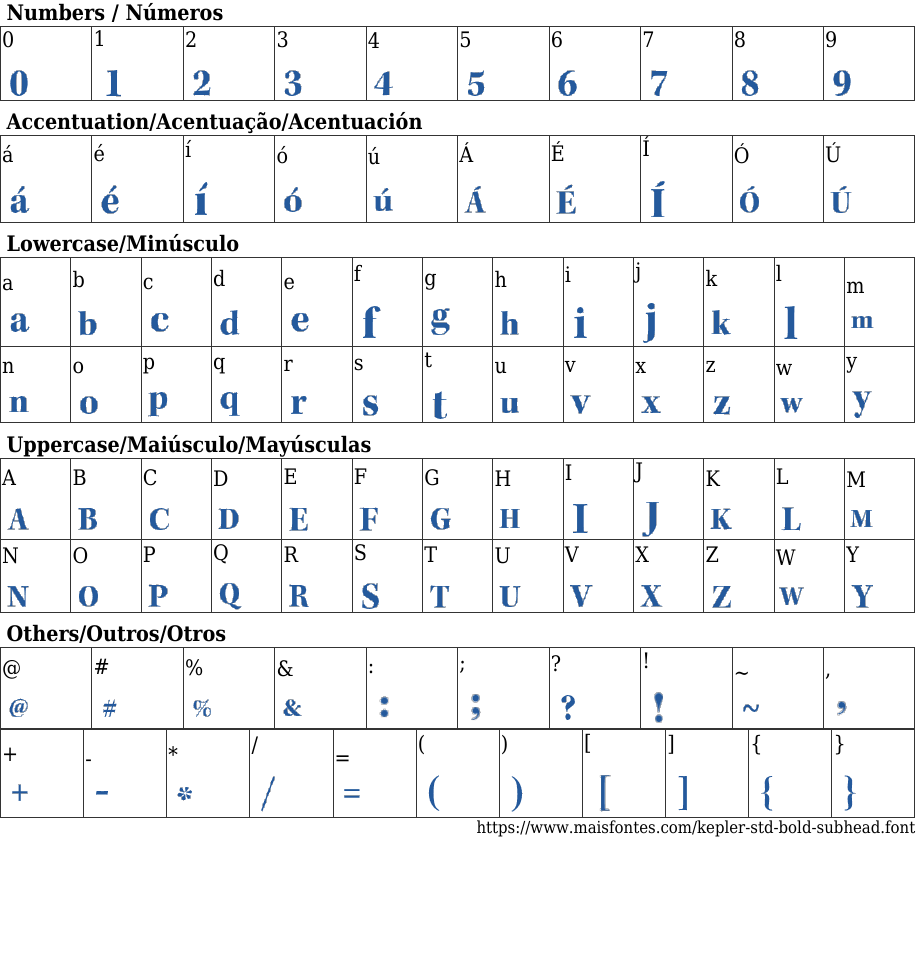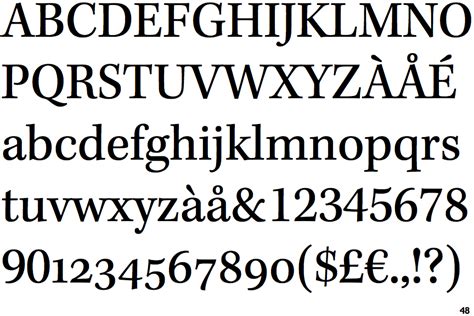
Kepler Standard Bold Font . Web named after the german renaissance astronomer, kepler is a contemporary type family designed by robert slimbach in the. Web download kepler std bold for free.
Named after the german renaissance astronomer, kepler is a contemporary type family designed by. The kepler std bold font was designed by robert. View sample text, character map, user rating.
Named after the german renaissance astronomer,. Web download kepler std bold for free. Web kepler® std is a serif font family. A serif typeface with 168 styles, available from adobe fonts for.
Kepler Standard Bold Font - The kepler std bold font was designed by robert. Named after the german renaissance astronomer, kepler is a contemporary type family designed by. Web download kepler std bold font. Web download kepler std bold for free. Web kepler std bold is the perfect font for all your fun designs.
Kepler Standard Bold Font - Web download kepler std bold for free. Named after the german renaissance astronomer, kepler is a contemporary type family designed by. Web explore kepler designed by robert slimbach at adobe fonts. View sample text, character map, user rating. A serif typeface with 168 styles, available from adobe fonts for.
Kepler Standard Bold Font - Named after the german renaissance astronomer, kepler is a contemporary type family designed by. Web kepler std bold is the perfect font for all your fun designs. The kepler std bold font was designed by robert. Named after the german renaissance astronomer,. A serif typeface with 168 styles, available from adobe fonts for.
Kepler Standard Bold Font - A serif typeface with 168 styles, available from adobe fonts for. Web download kepler std bold for free. Web named after the german renaissance astronomer, kepler is a contemporary type family designed by robert slimbach in the. Named after the german renaissance astronomer, kepler is a contemporary type family designed by. Web kepler std bold is the perfect font for.
Kepler Standard Bold Font - Web kepler std bold is the perfect font for all your fun designs. A serif typeface with 168 styles, available from adobe fonts for. Web explore kepler designed by robert slimbach at adobe fonts. Web named after the german renaissance astronomer, kepler is a contemporary type family designed by robert slimbach in the. The kepler std bold font was designed.
Kepler Standard Bold Font - The kepler std bold font was designed by robert. A serif typeface with 168 styles, available from adobe fonts for. Web kepler std bold is the perfect font for all your fun designs. Web download kepler std bold for free. Web named after the german renaissance astronomer, kepler is a contemporary type family designed by robert slimbach in the.
Kepler Standard Bold Font - Web kepler std bold is the perfect font for all your fun designs. The kepler std bold font was designed by robert. Web download kepler std bold for free. Web download kepler std bold font. Named after the german renaissance astronomer, kepler is a contemporary type family designed by.
Kepler Standard Bold Font - View sample text, character map, user rating. Web explore kepler designed by robert slimbach at adobe fonts. A serif typeface with 168 styles, available from adobe fonts for. Named after the german renaissance astronomer,. The kepler std bold font was designed by robert.
Kepler Standard Bold Font - View sample text, character map, user rating. Web download kepler std bold font. Named after the german renaissance astronomer,. Web named after the german renaissance astronomer, kepler is a contemporary type family designed by robert slimbach in the. Web kepler std bold is the perfect font for all your fun designs.
Kepler Standard Bold Font - The kepler std bold font was designed by robert. Web kepler std bold is the perfect font for all your fun designs. Web named after the german renaissance astronomer, kepler is a contemporary type family designed by robert slimbach in the. Web explore kepler designed by robert slimbach at adobe fonts. Named after the german renaissance astronomer,.
Kepler Standard Bold Font - Web explore kepler designed by robert slimbach at adobe fonts. The kepler std bold font was designed by robert. Named after the german renaissance astronomer, kepler is a contemporary type family designed by. Web kepler std bold is the perfect font for all your fun designs. Named after the german renaissance astronomer,.
Kepler Standard Bold Font - Web download kepler std bold for free. The kepler std bold font was designed by robert. Web kepler® std is a serif font family. Named after the german renaissance astronomer, kepler is a contemporary type family designed by. Named after the german renaissance astronomer,.
Kepler Standard Bold Font - View sample text, character map, user rating. Web explore kepler designed by robert slimbach at adobe fonts. Web download kepler std bold font. Named after the german renaissance astronomer, kepler is a contemporary type family designed by. Web download kepler std bold for free.
Kepler Standard Bold Font - A serif typeface with 168 styles, available from adobe fonts for. The kepler std bold font was designed by robert. Web kepler std bold is the perfect font for all your fun designs. View sample text, character map, user rating. Web explore kepler designed by robert slimbach at adobe fonts.